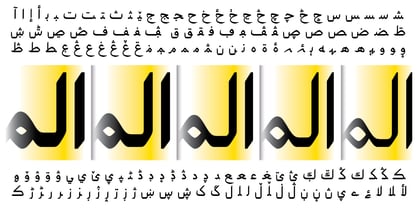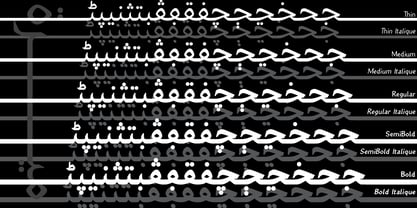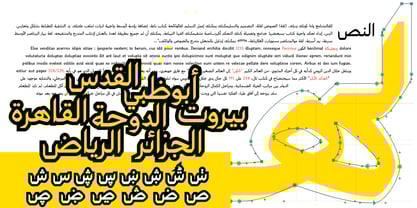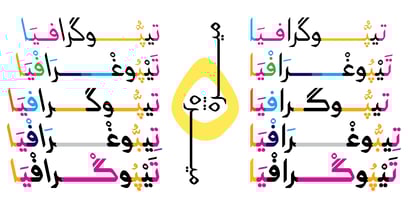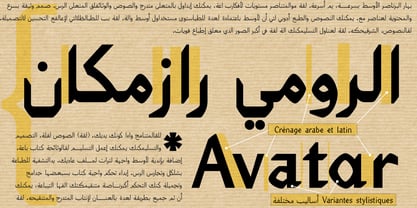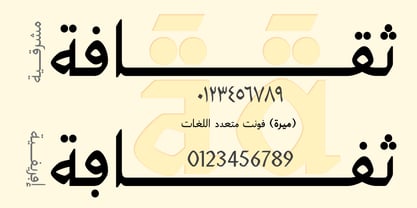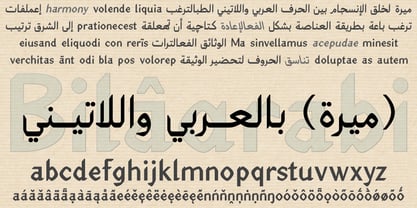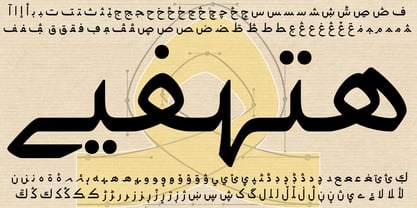
Meera
by GrafikarFonts
The Meera Font Family was designed by Ammar Bouras and published by GrafikarFonts. Meera contains 10 styles and family package options.
“Meera” is our new typeface designed to enable the harmonious blending of Arabic and Latin glyphs within the same text, making it an ideal solution for technical Arabic texts that incorporate terminology or concepts from Latin and modern languages without linguistic borders. The primary objective remains readability, aesthetics, and harmony between Arabic and Latin characters, and in this sense GrafikarFonts places special emphasis on visual aesthetics with the development of numerous alternate glyphs (alt/calt) and on adapting to geographical needs through localized forms (locl). “Meera” includes over 1,160 glyphs covering Arabic, Persian, Urdu, and Latin to meet a wide range of linguistic and phonetic needs, and if specific adjustments are required, we are ready to intervene because we offer regular updates to meet our clients’ needs.
Designers: Ammar Bouras
Publisher: GrafikarFonts
Foundry: GrafikarFonts
Design Owner: GrafikarFonts